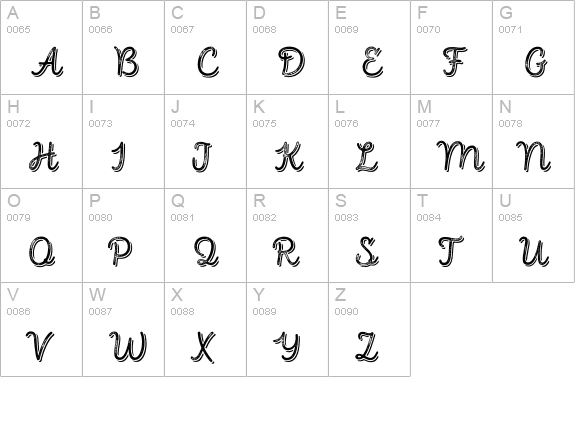
Intro Script R G Base Shade Font Details
Introducing the captivating Intro Script R G Base Shade font, a versatile typeface that exudes elegance and sophistication. This unique font features intricate details and a stylish design that is sure to make your projects stand out. The blend of script and base shade elements creates a harmonious balance, perfect for various design purposes. Best of all, this stunning font is available for free download at FontsMarket.com. Whether you're working on branding materials, invitations, posters, or any other creative project, the Intro Script R G Base Shade font will add a touch of class and sophistication. Don't miss out on this amazing opportunity to enhance your designs with this beautiful and freely available font. Download it today and elevate your creations to the next level!